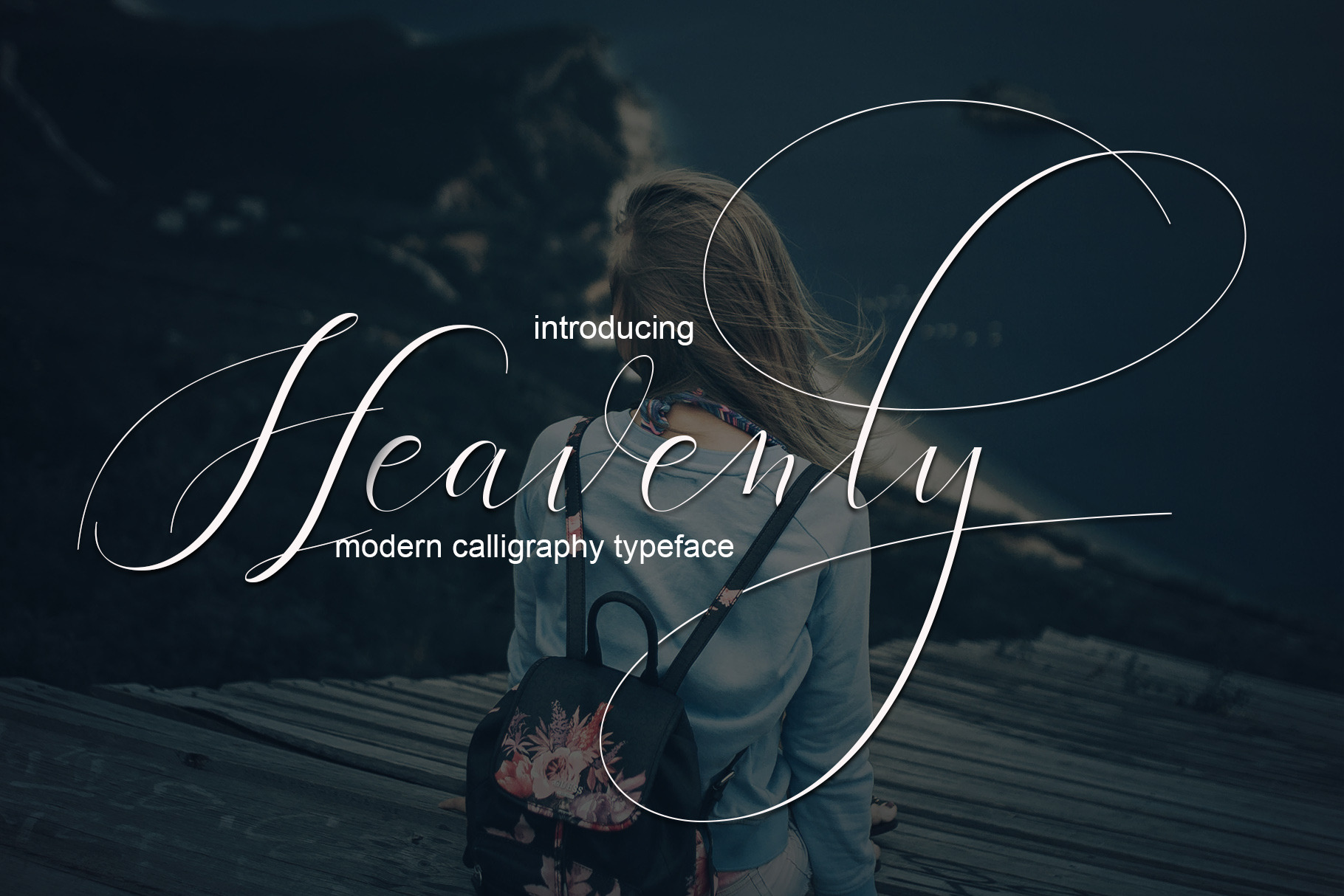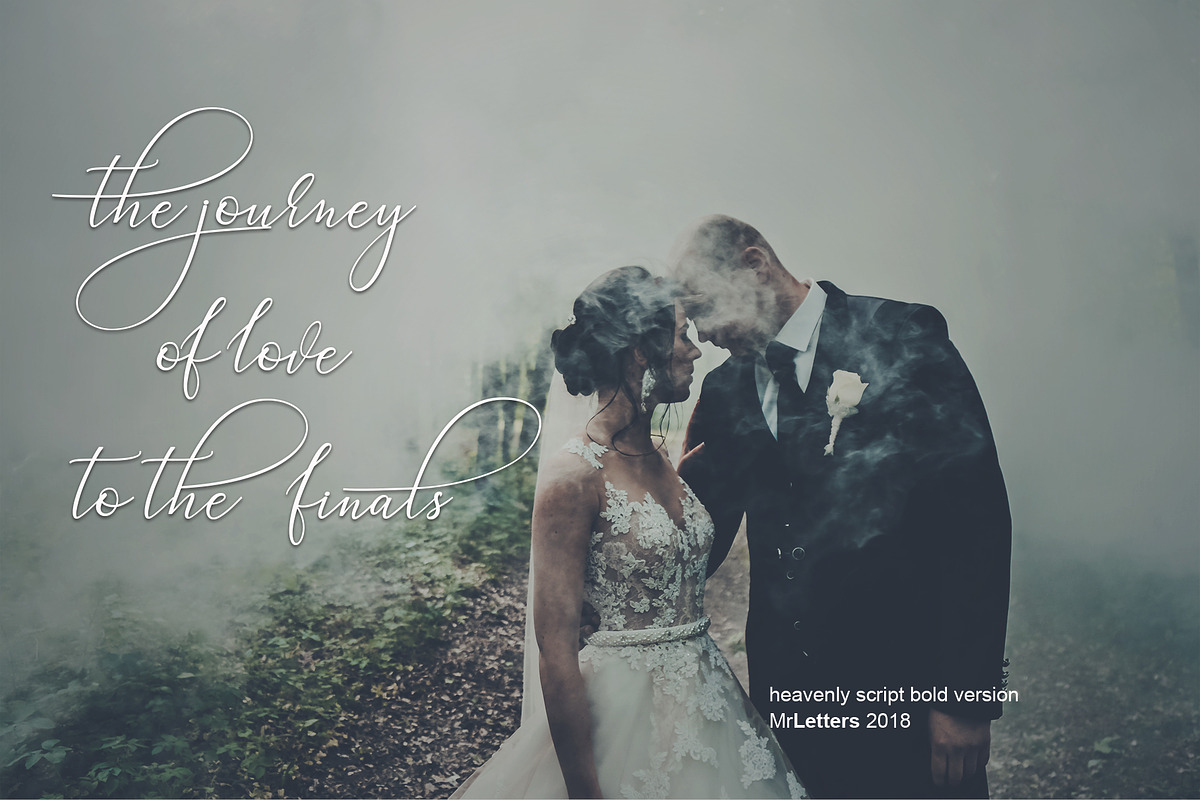
Heavenly - fancy fonts
Heavenly Script is a modern calligraphic font with a very cool handwriting style, this font is perfect for your various design needs such as branding, wedding invitations, magazines, mugs, business cards, posters, and more.
Heavenly Script are equipped with glyphs and alternative characters, allowing you to have many different character choices when starting your design.